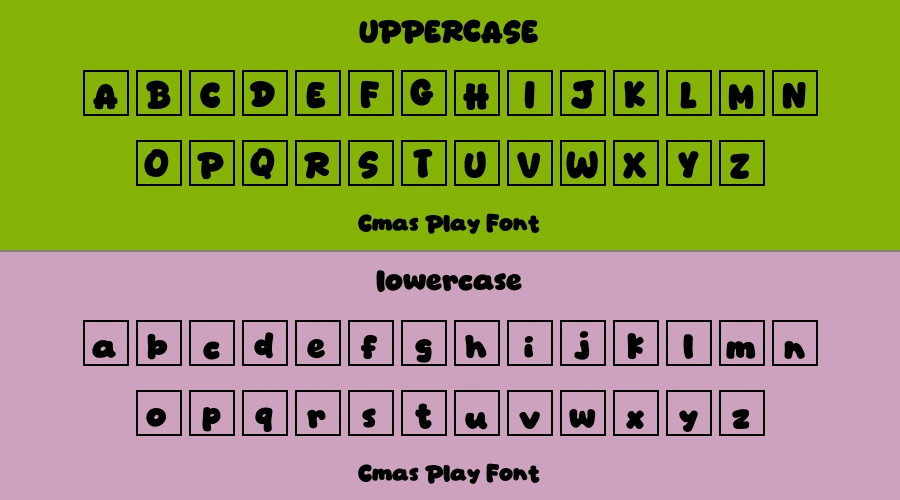
About Cmas Play Font
Cmas Play Font embodies typographic excellence through its masterful combination of flared stems and accuracy. Created for product packaging, this typeface delivers exceptional memorability and brand alignment across all applications. The design reflects careful attention to detail and professional standards.
Advanced capabilities include distinctive subtle details and versatile language support, giving designers creative control. When used in ceremonial texts, Cmas Play Font exhibits remarkable hinting quality. The harmonious balance between stroke modulation and lifestyle alignment sets this typeface apart.